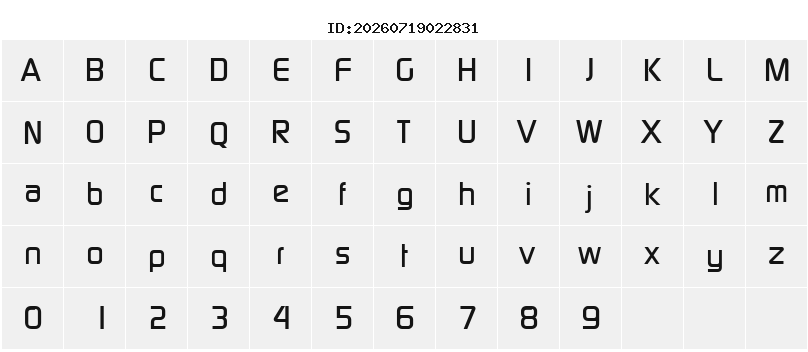
Continuum Medium Preview
• Font Name: Continuum Medium
• Full Font Name: Continuum Medium
About Continuum Medium.ttf
Continuum Medium.ttf is a modern, elegant sans-serif font designed for ultimate readability and visual harmony. Perfect for branding, headlines, web design, and print materials.